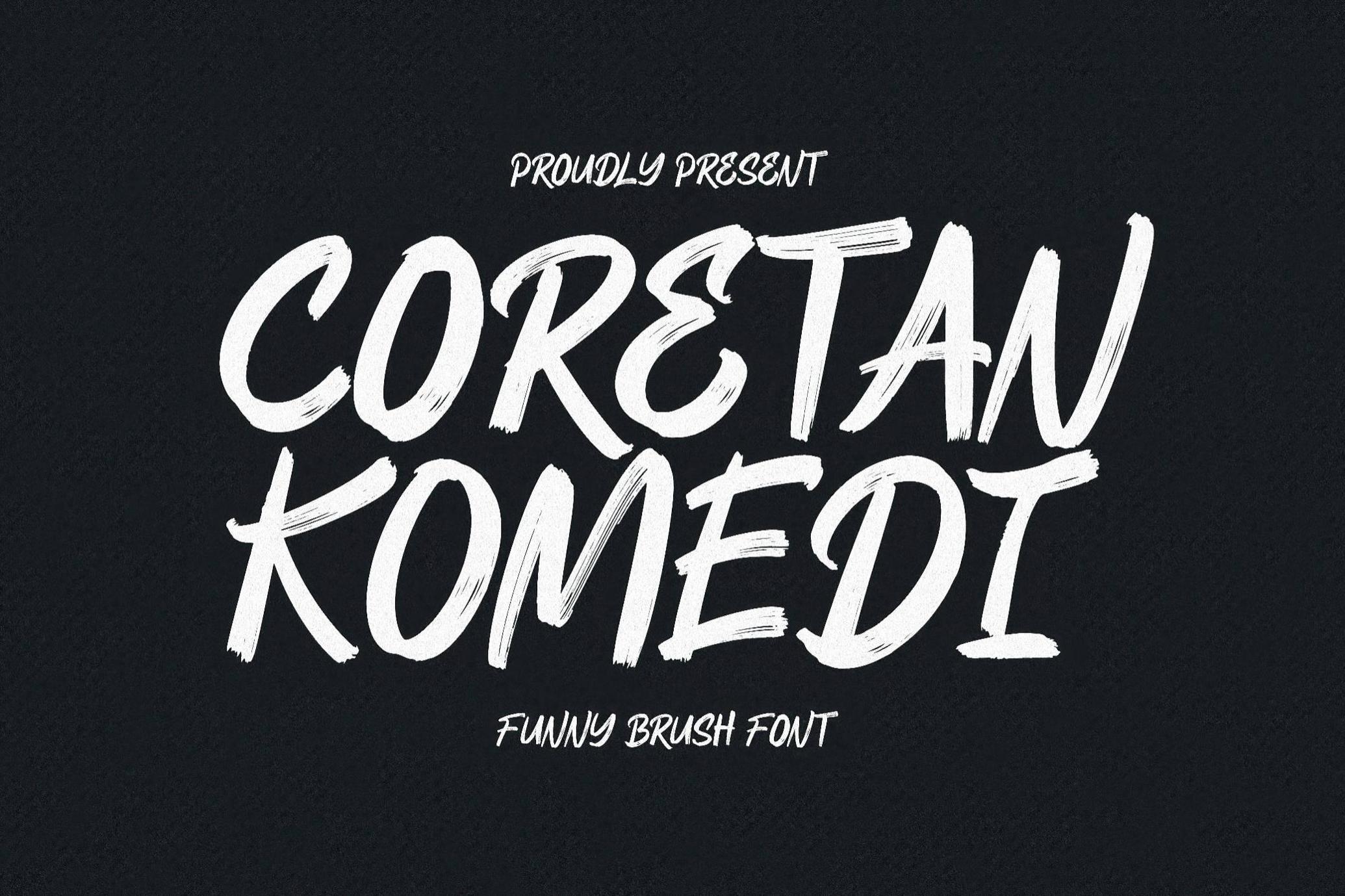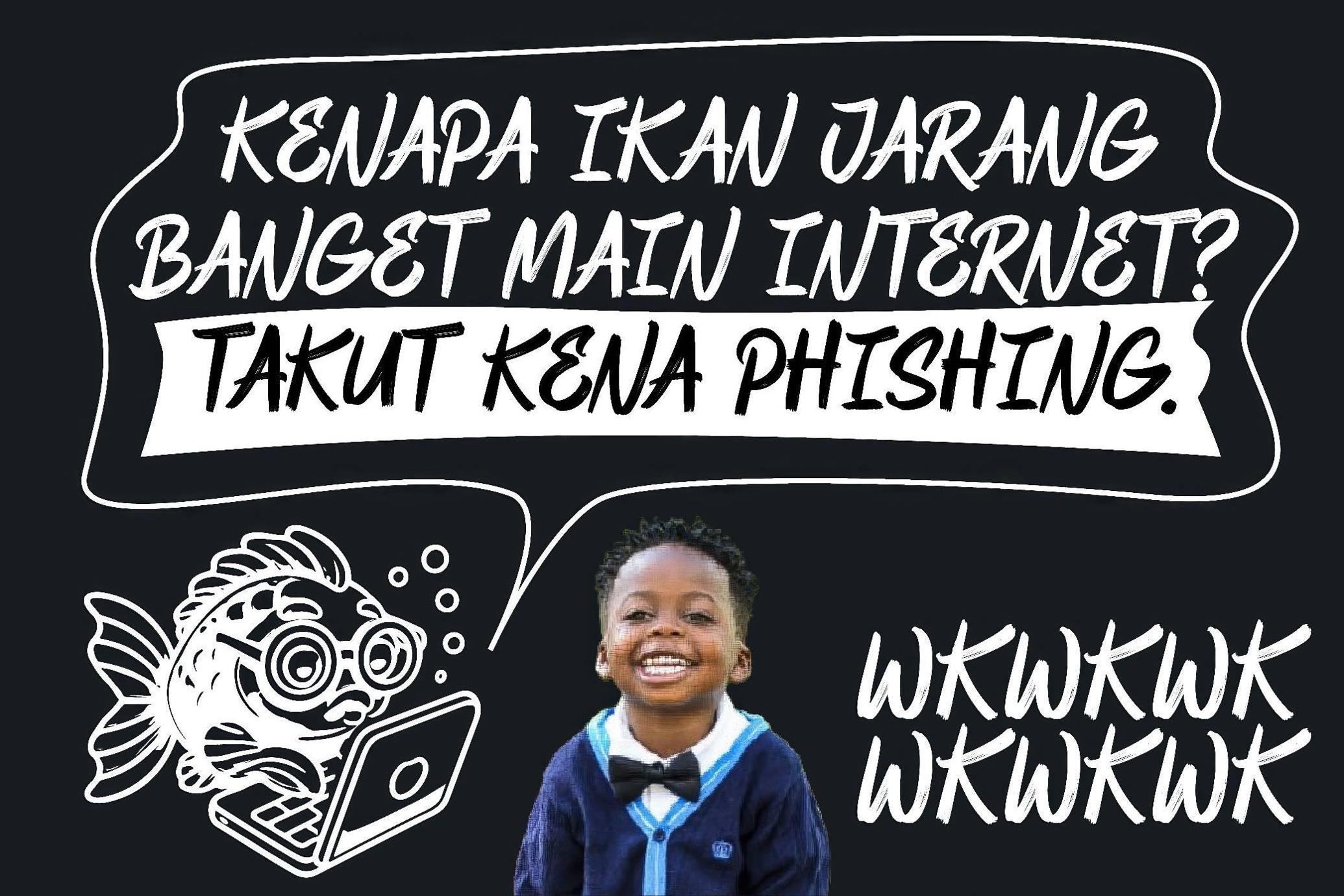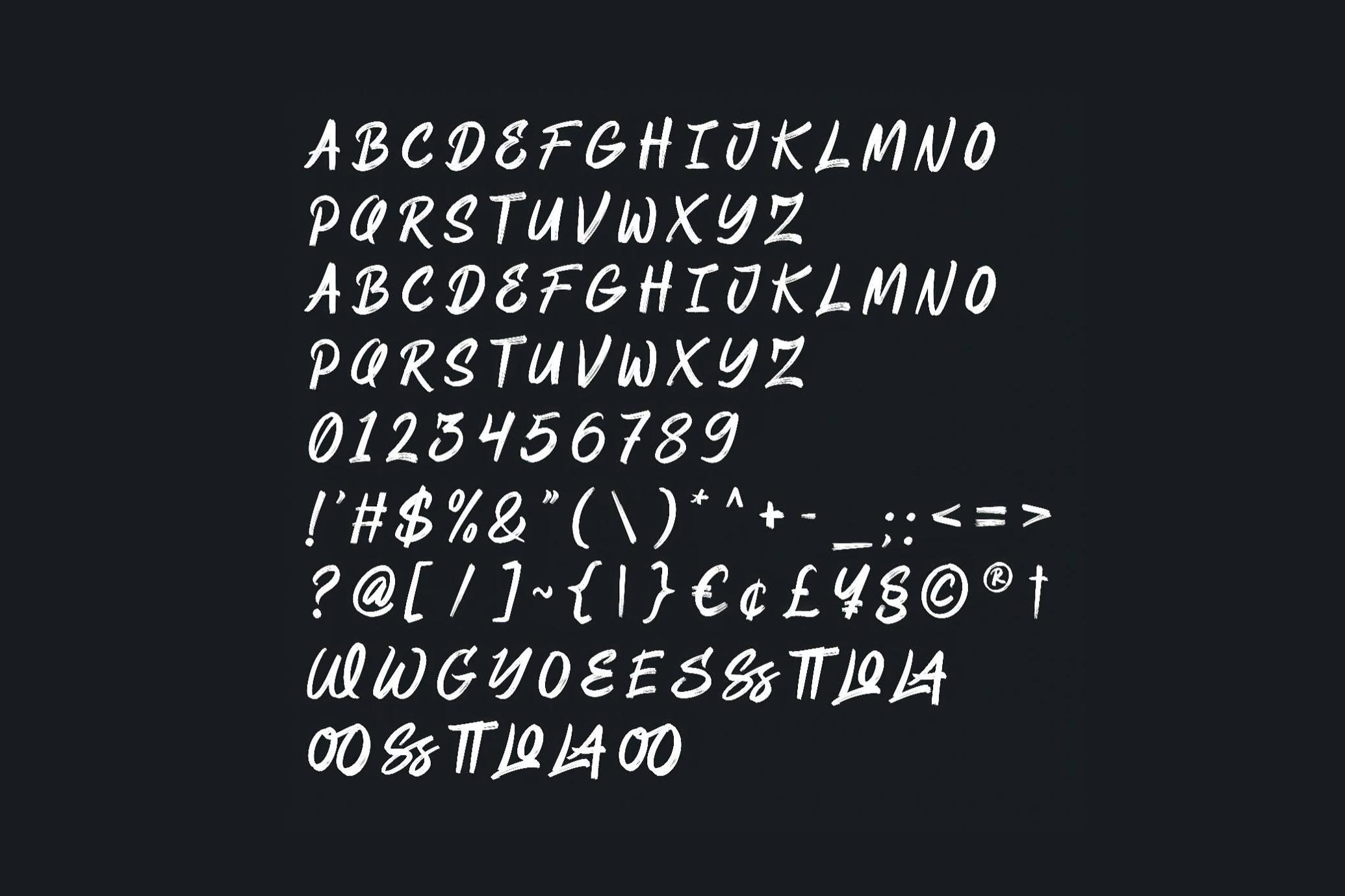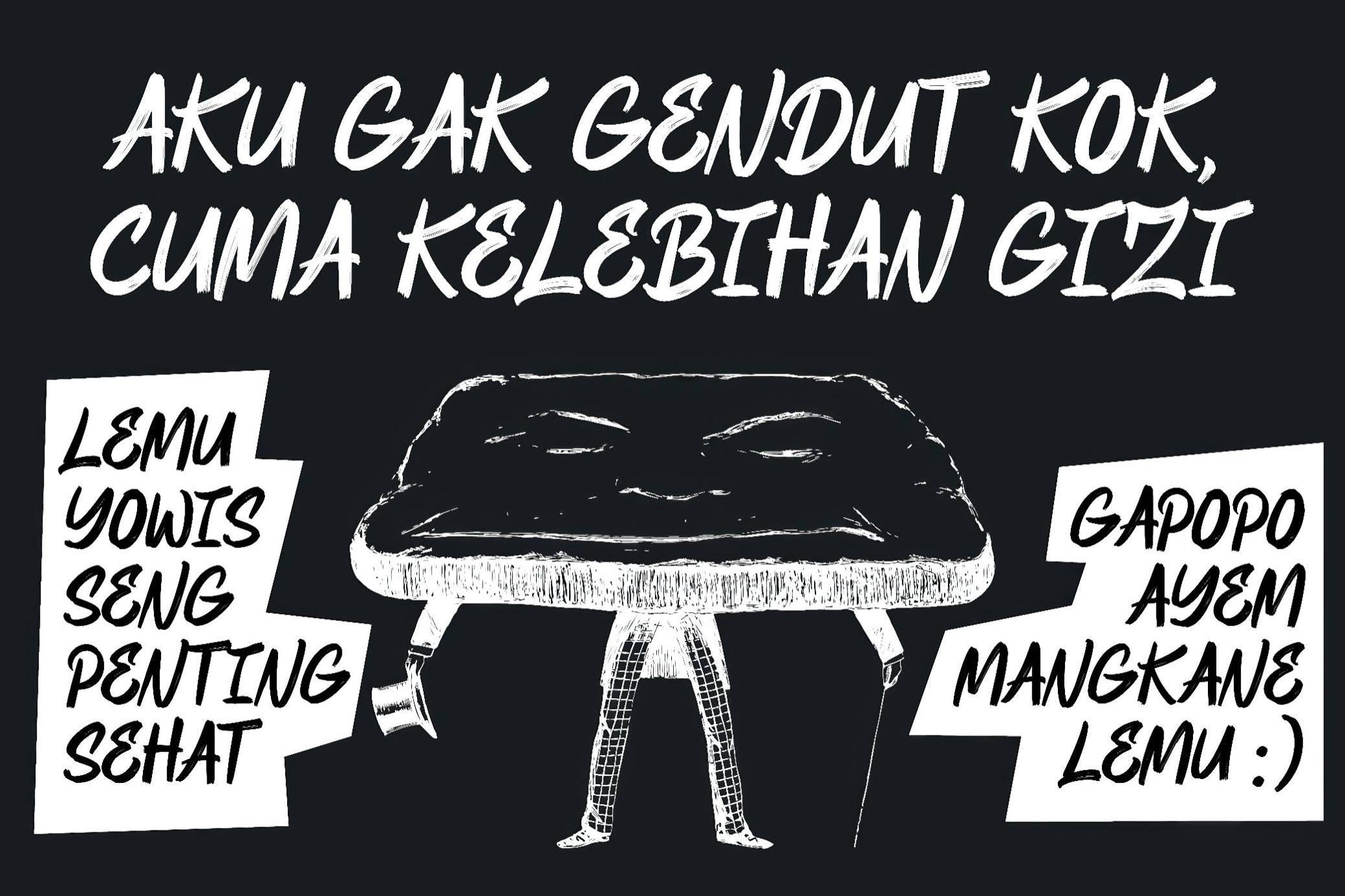
Coretan Komedi — Funny Brush Font
Coretan Komedi
You know that cheeky chalkboard outside your favorite coffee shop — the one that says “Espresso yourself” with swirly letters and a doodle of a dancing croissant? That’s the vibe Coretan Komedi brings, but dialed up and digitized. This bold, brushy all-caps font feels like someone hand-lettered it while giggling, late at night, on their third latte. Packed with 235 glyphs, multilingual sass, alternates, and ligatures, it’s perfect for designs that want to wiggle, scribble, and smirk all at once. It is your go-to for anything fun like posters, t-shirt designs, merch drops, greeting cards, stationery, and many more.